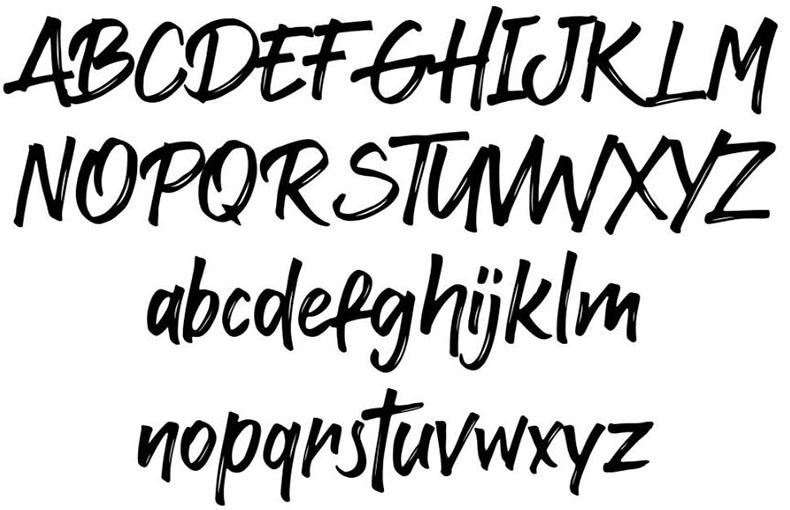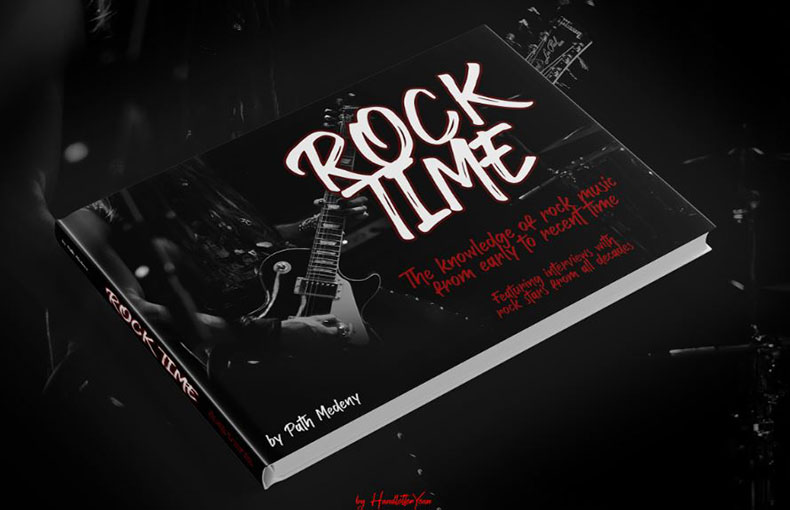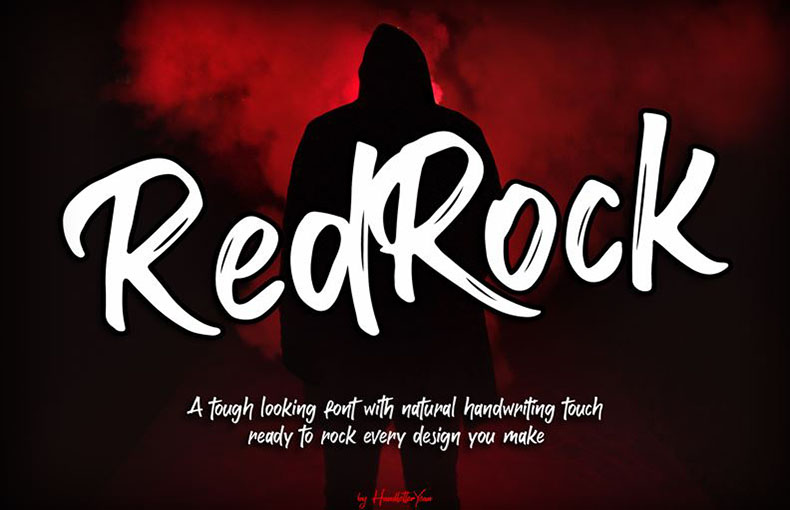
Redrock Font is a beautiful script brush typeface created by HandletterYean, a talented designer and typographer.
The handcrafted brush strokes offer a certain beauty and a sense of authenticity. This font offers a distinctive and attention-grabbing appeal whether you’re designing invites, logos, or branding materials.
It is a versatile option that deftly combines modernism with a vintage flair. It’s a requirement for designers looking for a gorgeous, expertly-made typeface that makes an impression.
This display typeface comes in a single style that contains 93 glyphs and 633 binary stored kerning pairs. It also supports 34 different languages.
It is a fantastic addition to your font collection, regardless of whether you’re a designer, illustrator, or just someone who likes typography. Your designs will stand out thanks to its distinct aesthetic and fluid brushstrokes.
It is ideal for use in logos, game graphics, stationary, headers, titles, flyers, movie titling, advertisements, social media posters, mockups, book covers, signs, and other media that call for a spooky, menacing appearance.
Its adaptability enables you to utilize it for a variety of design tasks, including posters, greeting cards, logos, and invitations.
Redrock Font is a font style that gives your writing a distinctive look. Its purpose is to stand out and attract interest.